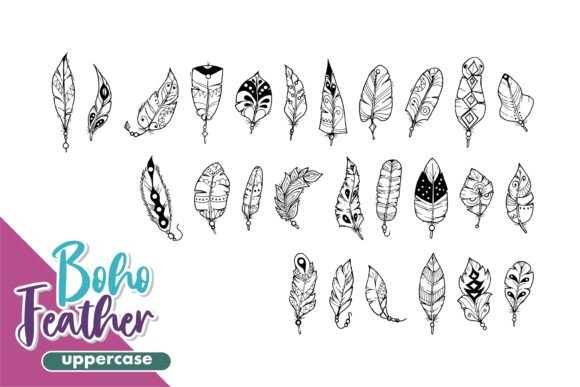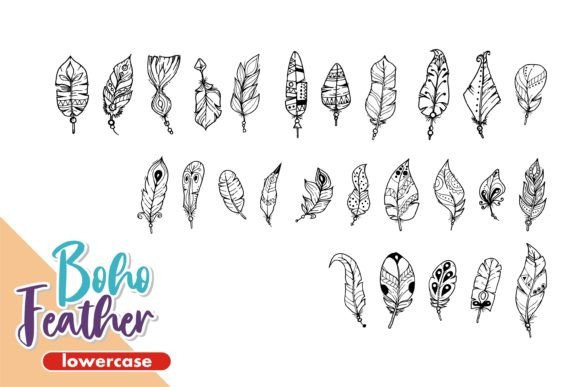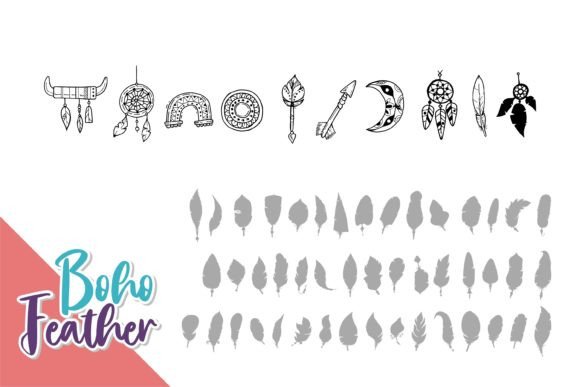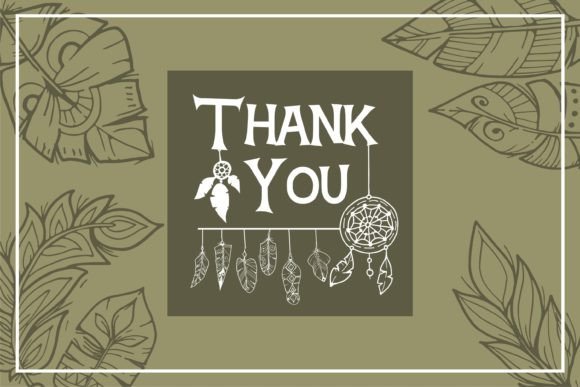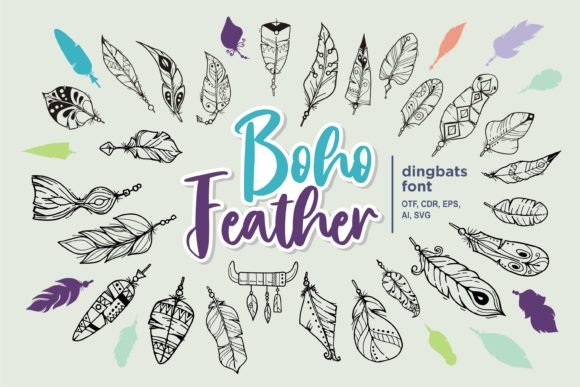
Introducing Boho Feather Font: Elevate Your Designs with a Touch of Bohemian Flair
Are you a designer, crafter, or DIY enthusiast looking to add a dash of bohemian charm to your creations? Look no further than the Boho Feather Font, a unique dingbats font that is sure to become a staple in your font library. With its eclectic and free-spirited vibe, this font is perfect for anyone who wants to infuse their designs with a touch of personality and whimsy.
What is Boho Feather Font?
Boho Feather Font is a carefully crafted dingbats font that embodies the essence of bohemian style. The font features an assortment of beautiful feather designs, each one meticulously created to capture the carefree and artistic spirit of the bohemian aesthetic. From delicate and intricate feather illustrations to bold and statement-making designs, this font has everything you need to add a touch of boho chic to your projects.
Why You’ll Love Boho Feather Font
So, what makes Boho Feather Font so special? Here are just a few reasons why designers and crafters are going to love this unique font:
- Versatility: Whether you’re working on a graphic design project, crafting a handmade card, or creating a social media post, Boho Feather Font is the perfect addition to your design toolkit. Its versatility knows no bounds, and it’s sure to complement a wide range of topics and themes.
- Unique Designs: The Boho Feather Font features a range of one-of-a-kind feather designs that will set your creations apart from the crowd. With its eclectic mix of illustrations, you’ll be able to add a touch of personality to your designs and make them truly unforgettable.
How to Use Boho Feather Font
So, how can you use Boho Feather Font in your designs? The possibilities are endless! Here are a few ideas to get you started:
- Handmade Cards: Add a touch of bohemian charm to your handmade cards with the Boho Feather Font. Use the feather designs to create beautiful borders, headers, and embellishments.
- Social Media Graphics: Take your social media graphics to the next level with the Boho Feather Font. Use the font to create eye-catching headers, quotes, and other design elements that will make your posts stand out.
- Branding and Packaging: Add a touch of personality to your branding and packaging with the Boho Feather Font. Use the font to create unique logos, labels, and other design elements that will help your brand stand out.
- DIY Projects: The Boho Feather Font is perfect for DIY enthusiasts who love to craft and create. Use the font to add a touch of bohemian charm to your DIY projects, such as wood signs, wall art, and other home decor items.
In conclusion, the Boho Feather Font is a must-have for designers, crafters, and DIY enthusiasts who want to add a touch of bohemian flair to their creations. With its unique and eclectic feather designs, this font is sure to become a staple in your font library. Whether you’re working on a graphic design project, crafting a handmade card, or creating a social media post, the Boho Feather Font is the perfect addition to your design toolkit. So why wait? Download the Boho Feather Font today and start elevating your designs with a touch of bohemian charm!